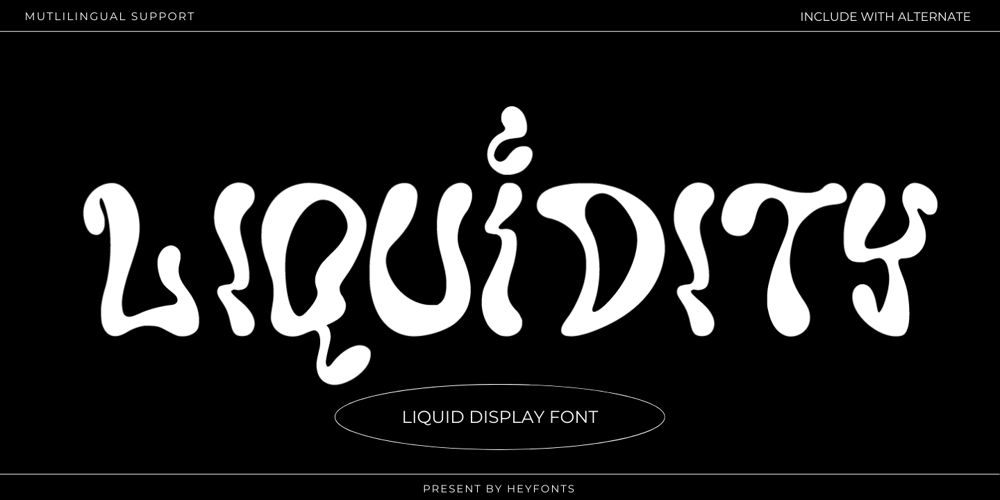
Liquidity Font Family was designed by Asep Rendy and published by Heyfonts. Liquidity contains 1 styles and family package options. Liquidity fonts are typography designs that imitate or simulate the appearance of liquids. They are often fluid and dynamic in nature, providing an illusion of movement and flow in letters and characters. Liquid fonts can be created using different design techniques, including hand-drawn illustrations, digital effects, or 3D modeling software.Some common features of Liquidity fonts include: Fluid and dynamic appearance: Liquidity fonts have a free-flowing and organic appearance, mimicking the look and movement of liquids such as water, ink, or paint. Variations in thickness: The thickness of the lines and curves in liquid fonts can vary, creating an uneven and organic appearance. Versatile use: Liquidity fonts are commonly used in creative designs such as logos, album covers, and advertising campaigns to create an eye-catching and memorable visual impact. Overall, Liquidity fonts are a unique and creative way to portray text, giving a sense of energy, motion, and fluidity to design projects.